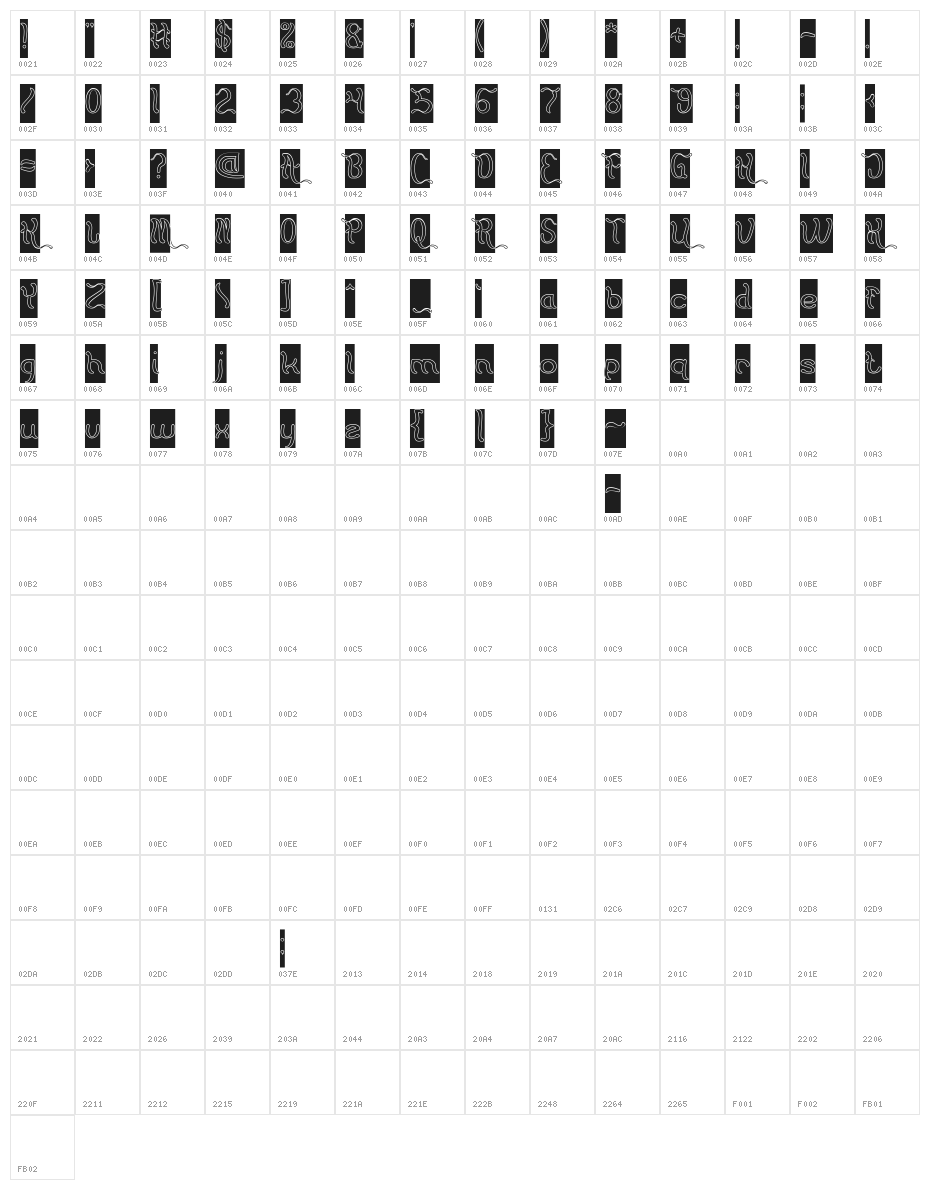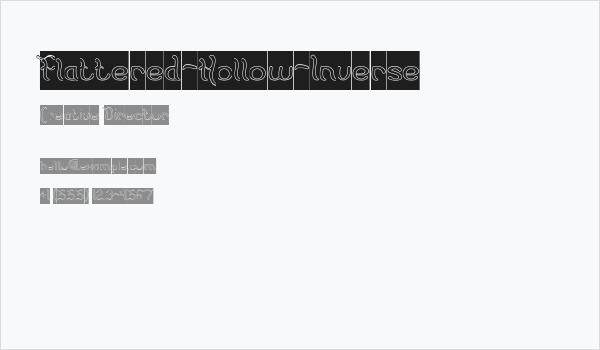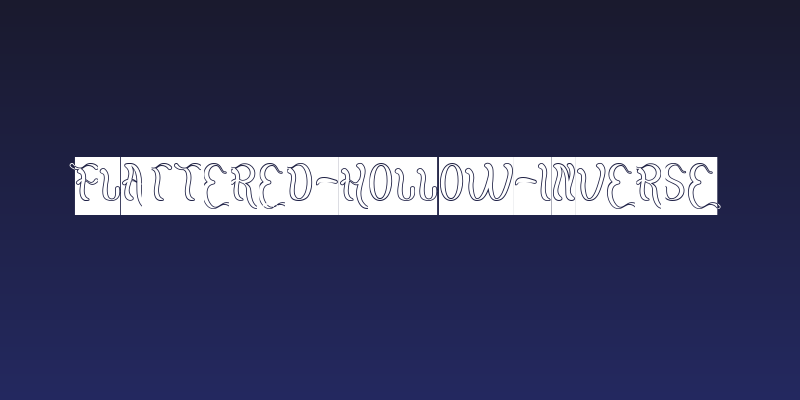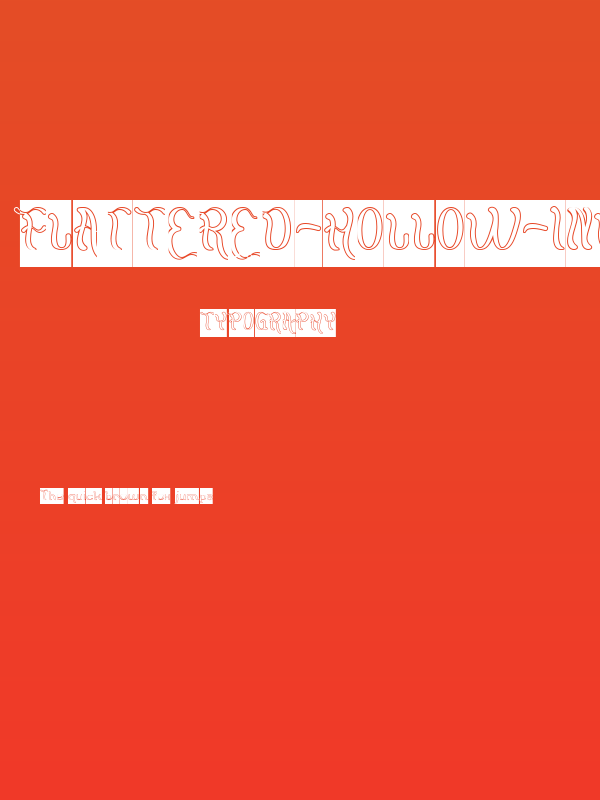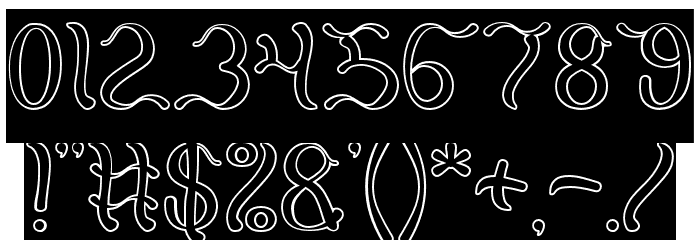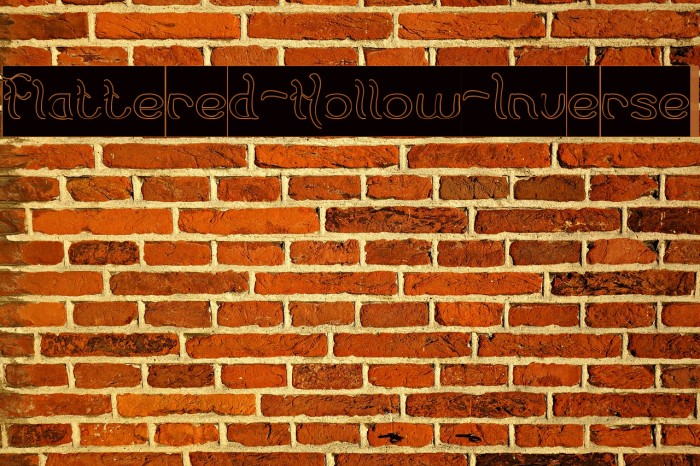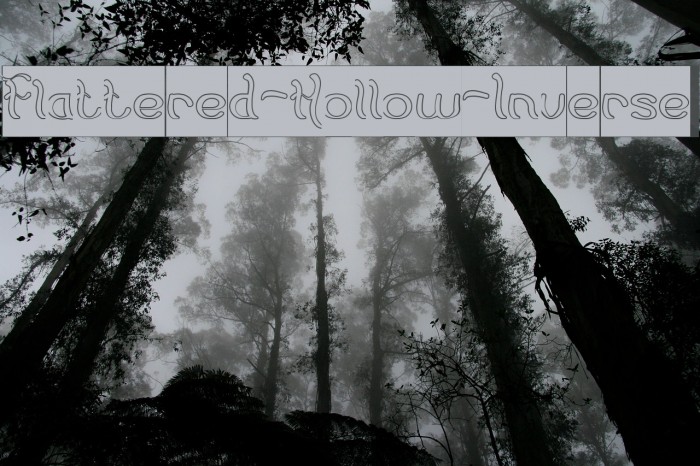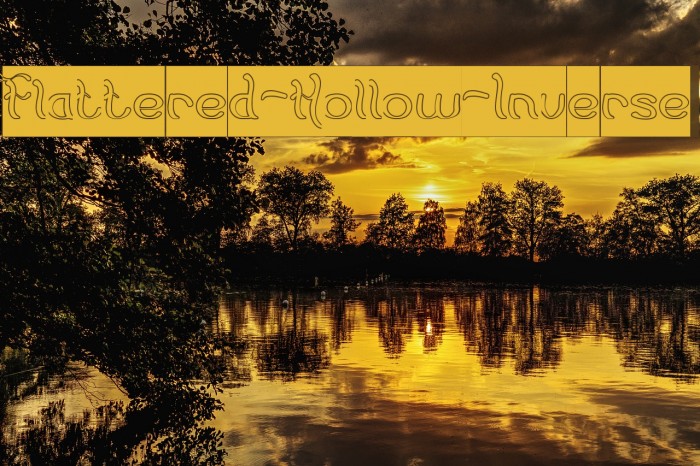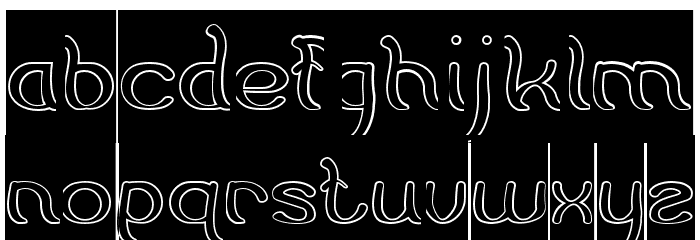
Flattered-Hollow-Inverse Font
Flattered-Hollow-Inverse Description
This font features a unique hollow design with an inverse style, where the characters are outlined with a consistent stroke width, creating a striking visual effect. The letters have a flowing, cursive-like appearance, with elegant curves and loops that add a sense of movement and dynamism. The uppercase and lowercase letters maintain a consistent style, with the uppercase being slightly more elaborate. The numerals and special characters follow the same design principles, ensuring a cohesive look across all elements. This font's distinct style makes it stand out, offering a creative and artistic touch to any project.
FLATTERED-HOLLOW-INVERSE UPPERCASE
FLATTERED-HOLLOW-INVERSE LOWERCASE
FLATTERED-HOLLOW-INVERSE OTHER CHARS